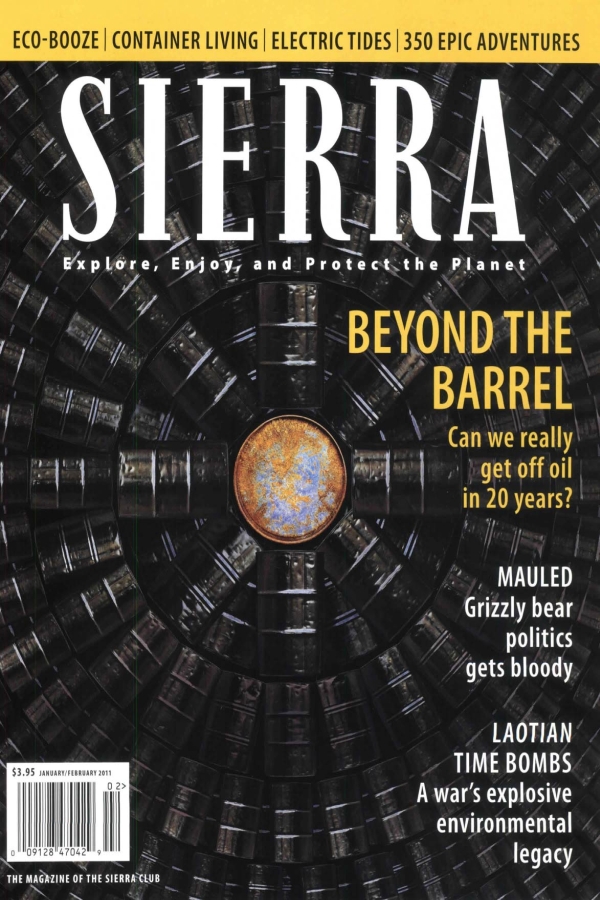
Sierra Font
BookSierra is a bimonthly publication of the Sierra Club, an environmental organization. It covers topics related to environmentalism, outdoor recreation, and conservation.
The magazine's logo uses a narrow slab serif font resembling Candida Medium Condensed. J. Erbar designed Candida in 1936 for Ludwig & Mayer, featuring small serifs and high contrast. Learn more about the font here.